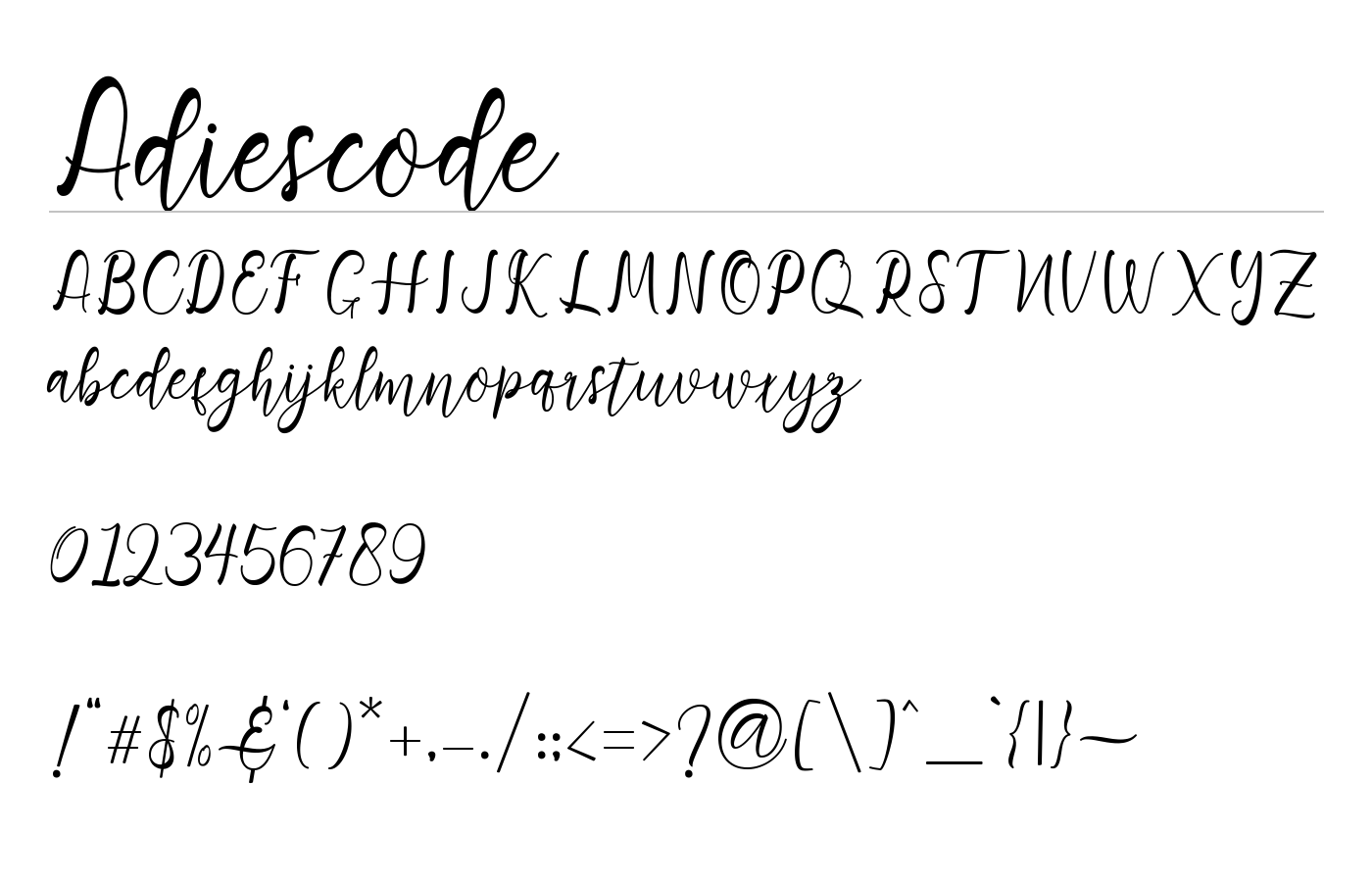
Adiescode is a delicate and elegant script font with a handwritten feel, featuring smooth, flowing strokes and moderate contrast, perfect for adding a touch of sophistication and charm. Its slender and slightly whimsical letterforms make it ideal for use in invitations, branding, and personal projects that aim for a graceful yet modern look. This font works beautifully in designs that want to communicate warmth, creativity, and style.
Adiescode Font
About Adiescode Font
| Designer | Syahputra/Bexxtype |